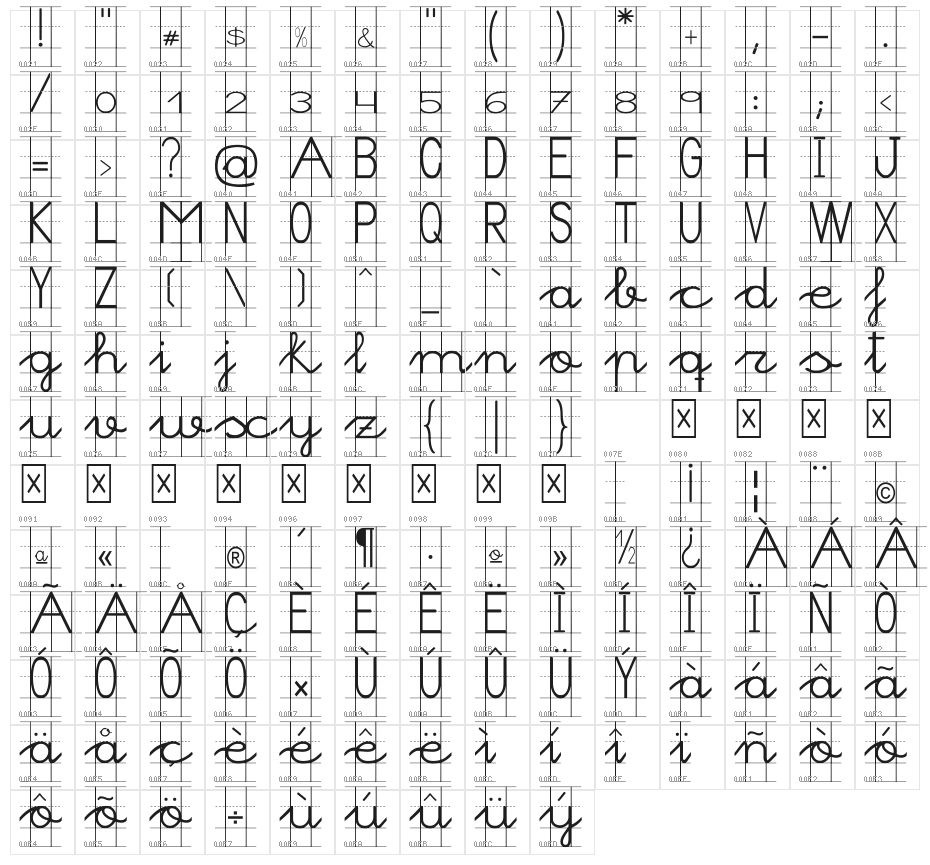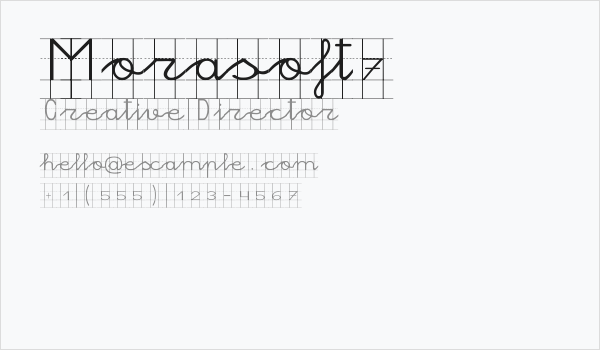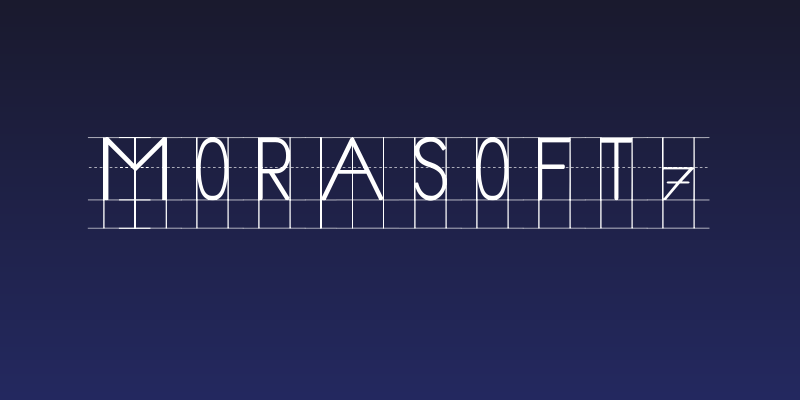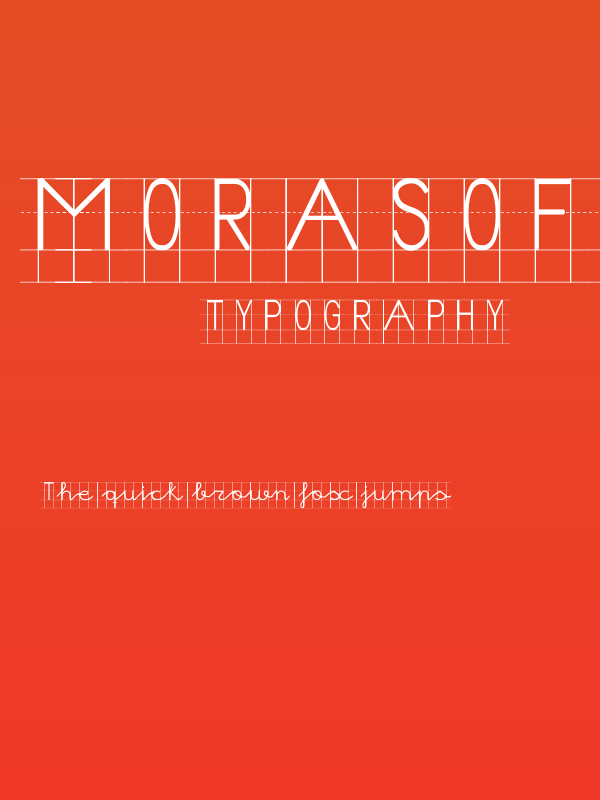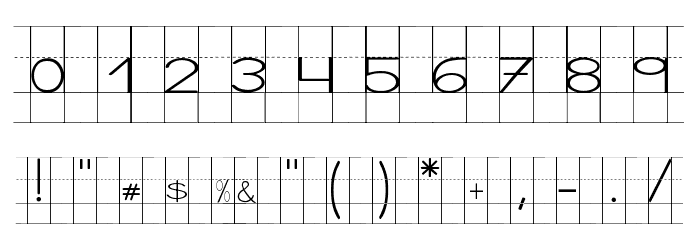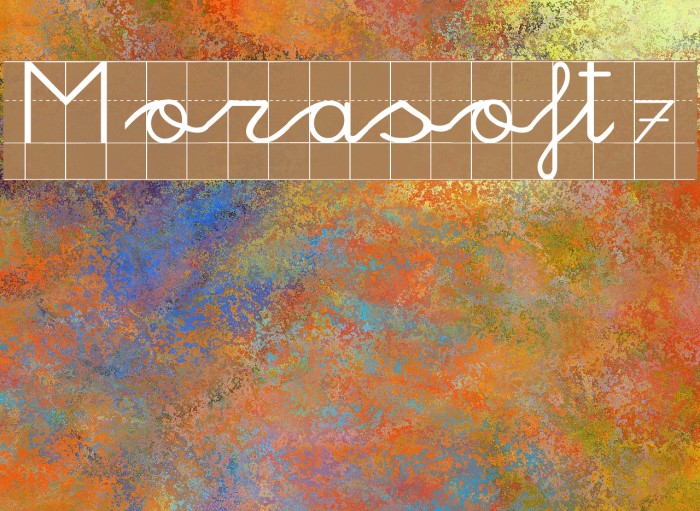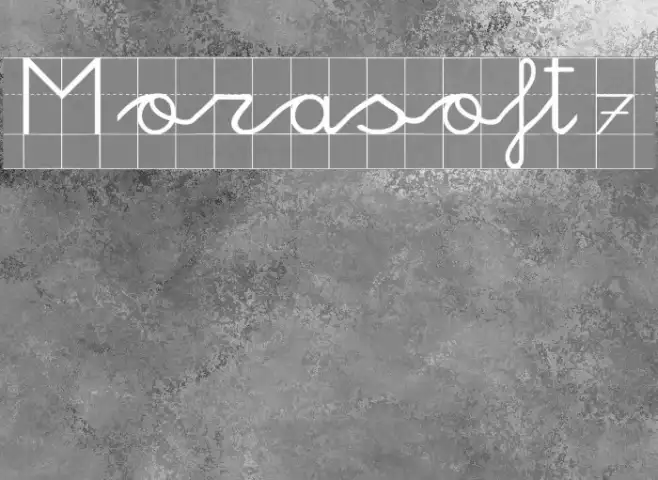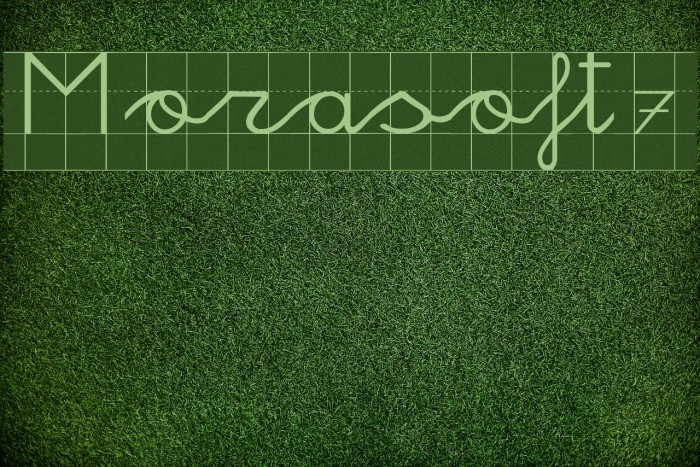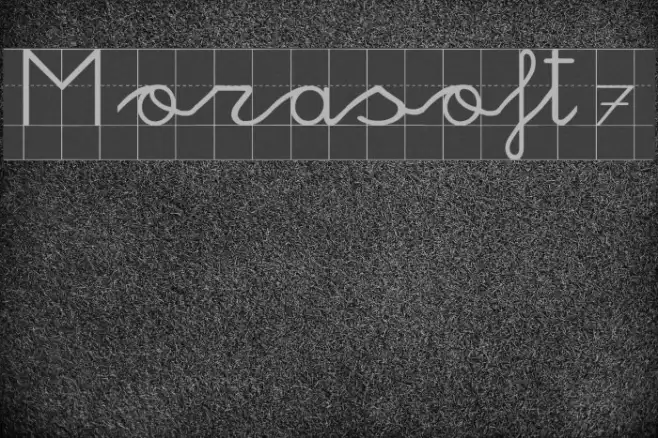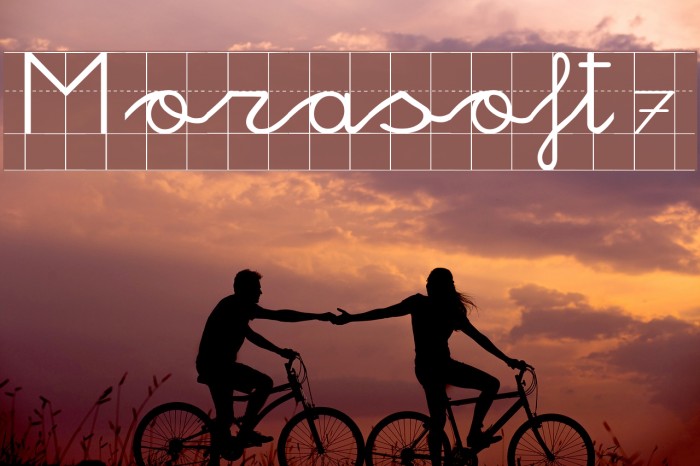
Morasoft7 Font
Morasoft7 Description
This font features a unique blend of geometric and cursive elements. The uppercase letters are characterized by their angular, structured forms, with a consistent height and width that give them a modern, architectural feel. In contrast, the lowercase letters are designed in a flowing, cursive style, adding an elegant and personal touch. The numerals are clean and straightforward, maintaining the geometric theme of the uppercase letters. Special characters are well-integrated, matching the overall style. The font's versatility makes it suitable for a variety of design projects, offering both readability and aesthetic appeal.
| Use Case | Logos, Invitations, Editorial Design |
| Proposed Projects | Ideal for branding, invitations, and editorial design where a mix of modern and personal style is desired. |